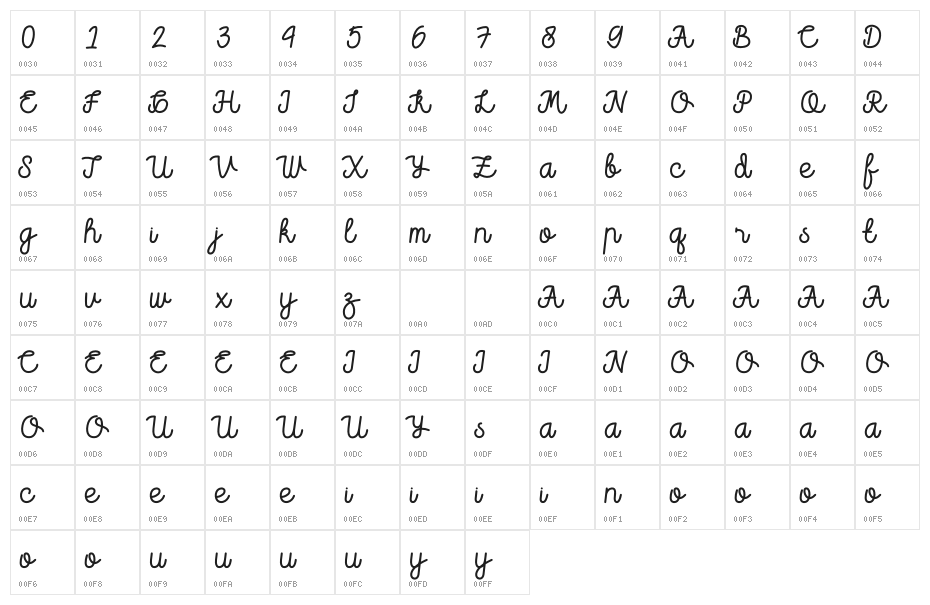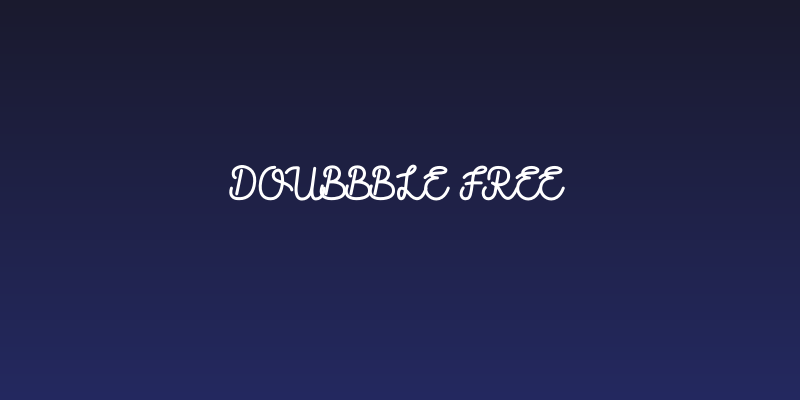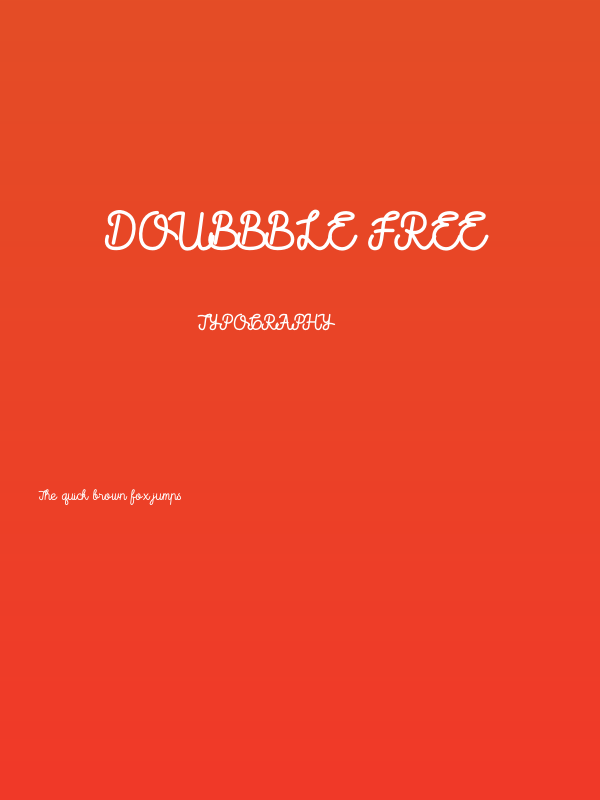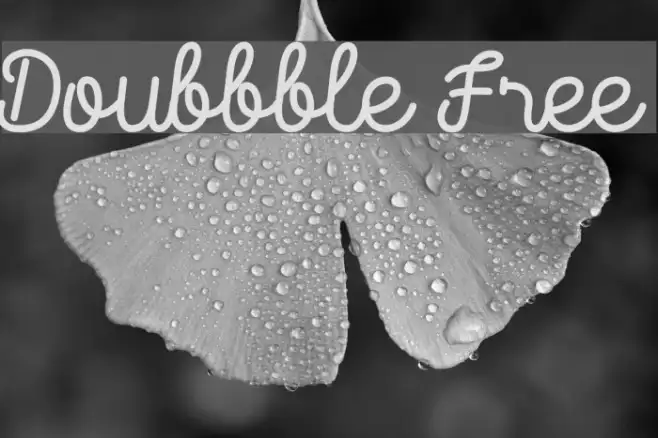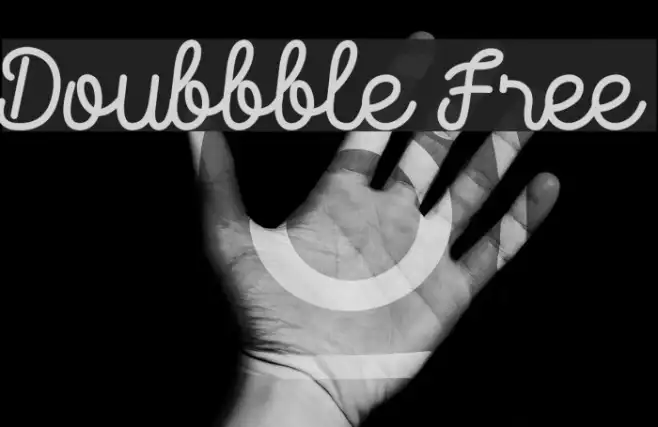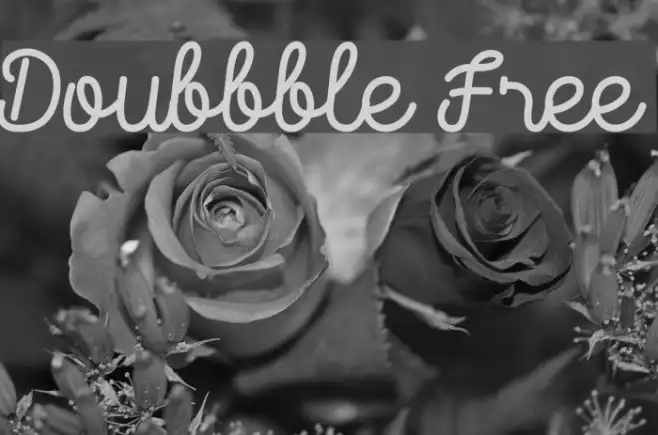
Doubbble Free Font
Doubbble Free Description
This font features a playful and flowing script style, characterized by its smooth, continuous strokes that mimic the fluidity of handwriting. The uppercase letters are bold and slightly slanted, giving them a dynamic appearance, while the lowercase letters maintain a consistent looped design, enhancing readability. The numerals are rounded and maintain the same playful aesthetic, ensuring uniformity across the font. The overall design is both elegant and casual, making it suitable for a variety of creative applications.
| Use Case | Logos, Invitations, Greeting cards |
| Proposed Projects | Ideal for greeting cards, invitations, logos, and branding materials that require a personal touch. |